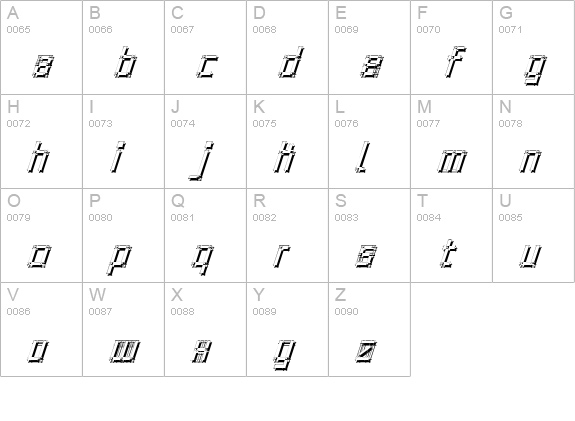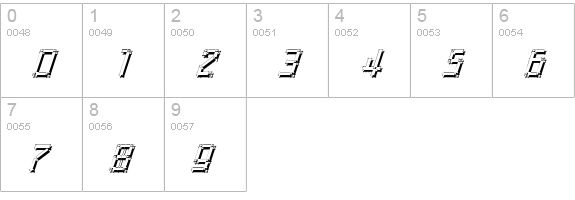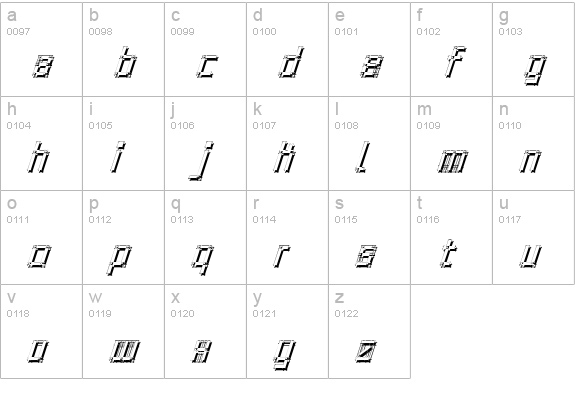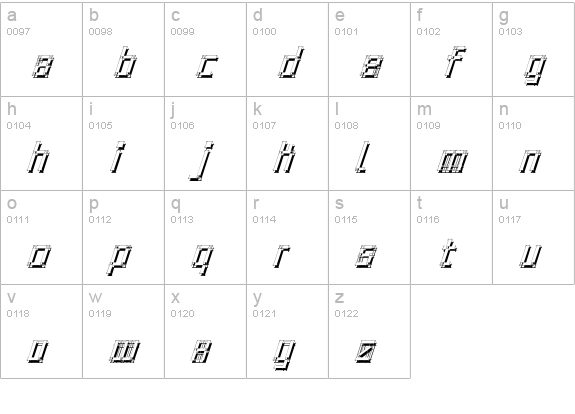
Architypo Oblique Font Details
Architypo Oblique is a distinctive, italic variant in the Architypo typeface family \xE2\x80\x94 well suited to design and typography projects.
Architypo Oblique is a modern and stylish font that exudes sophistication and elegance. Its sleek and slanted design adds a touch of contemporary flair to any project, making it perfect for branding, advertising, and editorial design. The sharp angles and clean lines of Architypo Oblique give it a unique and eye-catching appearance that is sure to capture attention. What sets Architypo Oblique apart is not just its striking design, but also the fact that it is available for free download at FontsMarket.com. This means that you can easily access this high-quality font without any cost, allowing you to use it in your projects without any restrictions. Whether you are a designer looking to enhance your creations or a business seeking a fresh and modern look for your brand, Architypo Oblique is the perfect choice. Download it for free today and add a touch of sophistication to your designs.